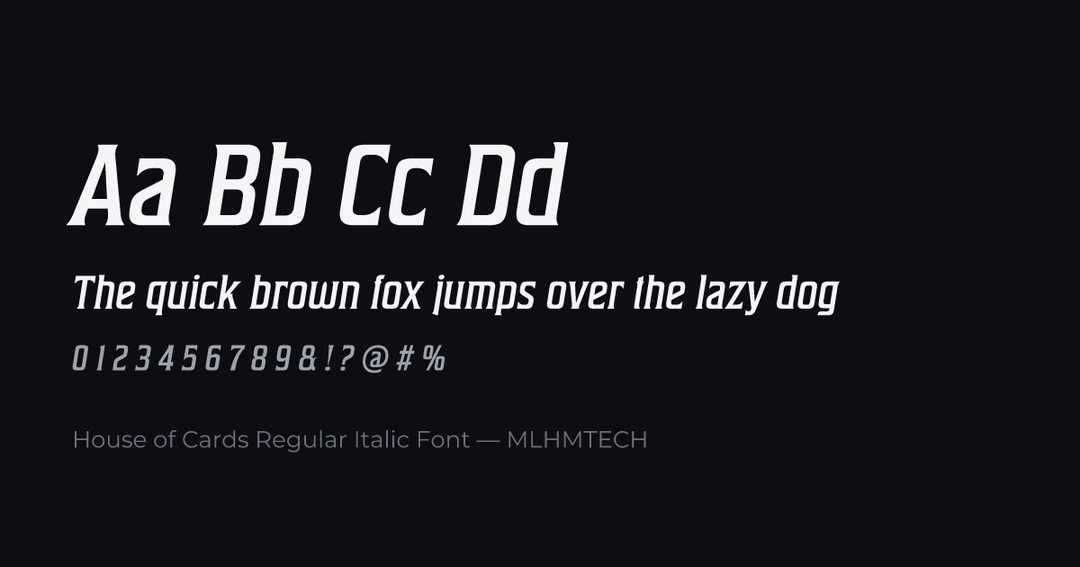
House of Cards Regular Italic Font
An elegant serif italic font, ideal for titles, headings, and branding. Adds a classic, refined touch to any project.
House of Cards Regular Italic is a sophisticated serif typeface with a graceful italic slant. Its clean lines and timeless appeal make it perfect for editorial layouts, branding, invitations, and video titles.
Use it to elevate your next project – whether you're designing a logo, creating a poster, or adding elegant titles to your video. The classic style of House of Cards Regular Italic will give your work a professional and polished look.